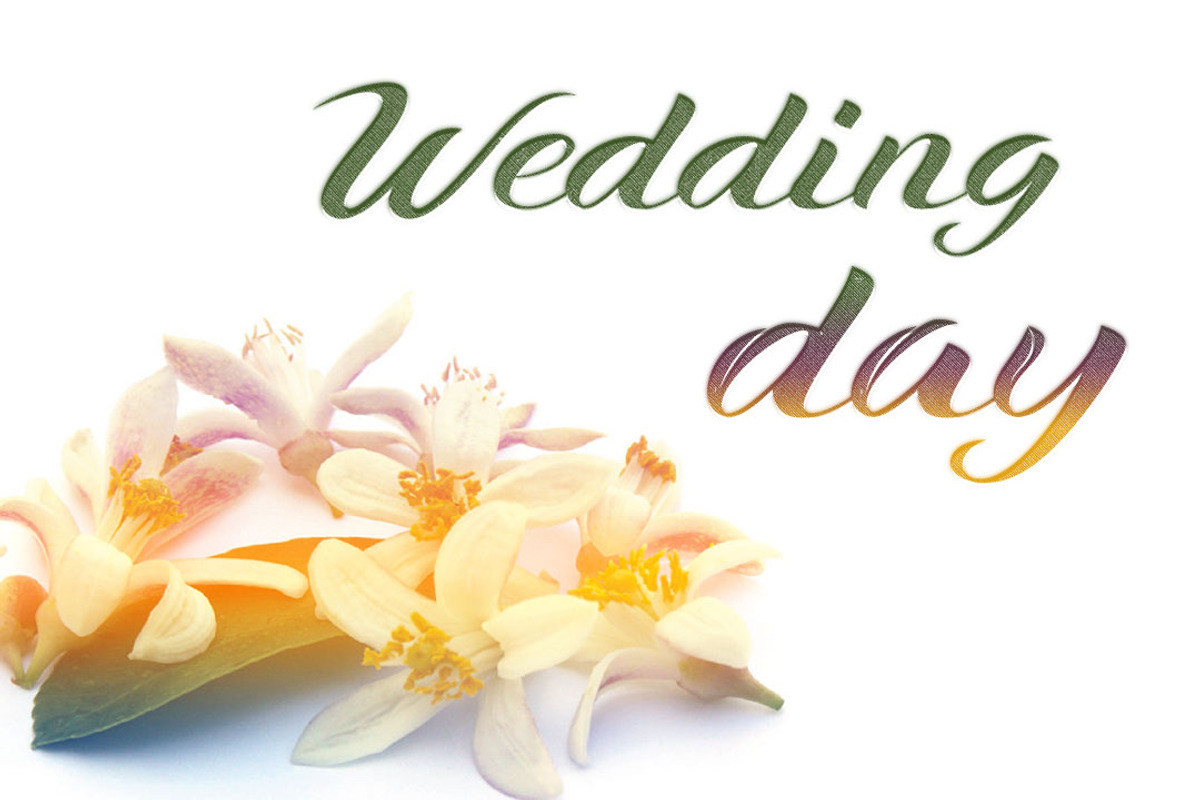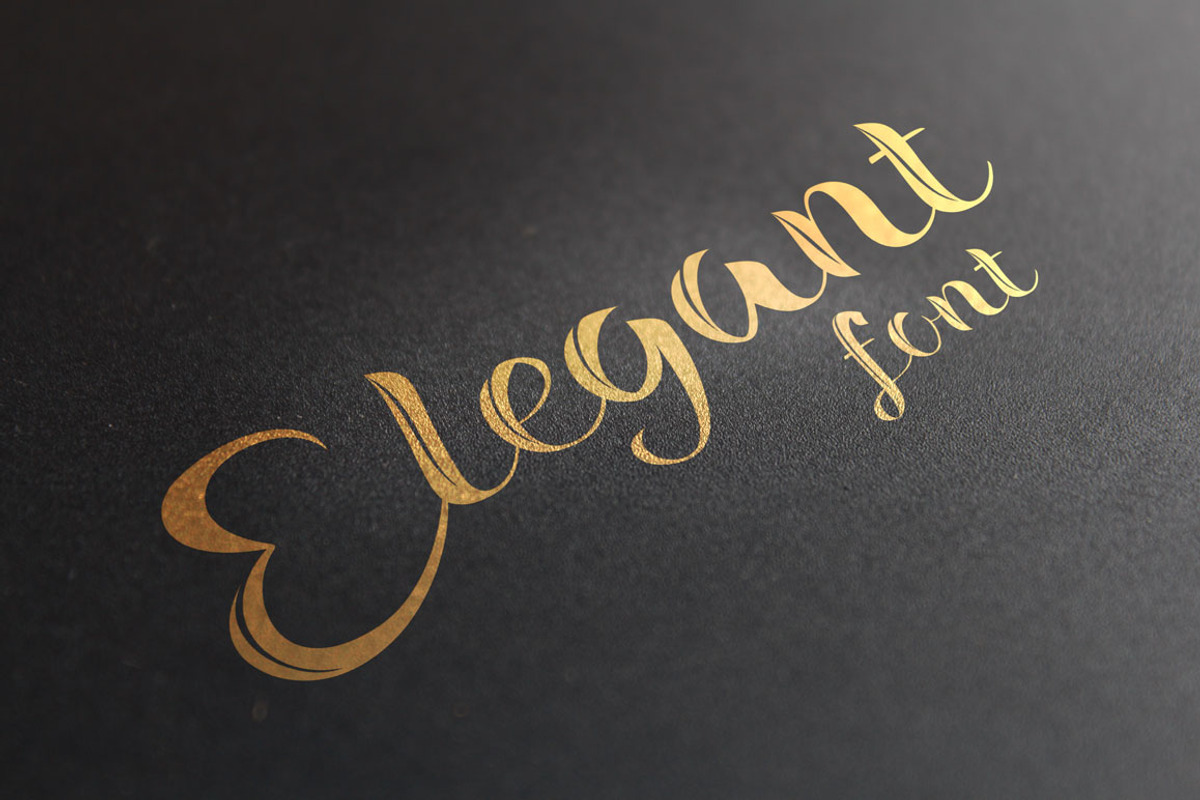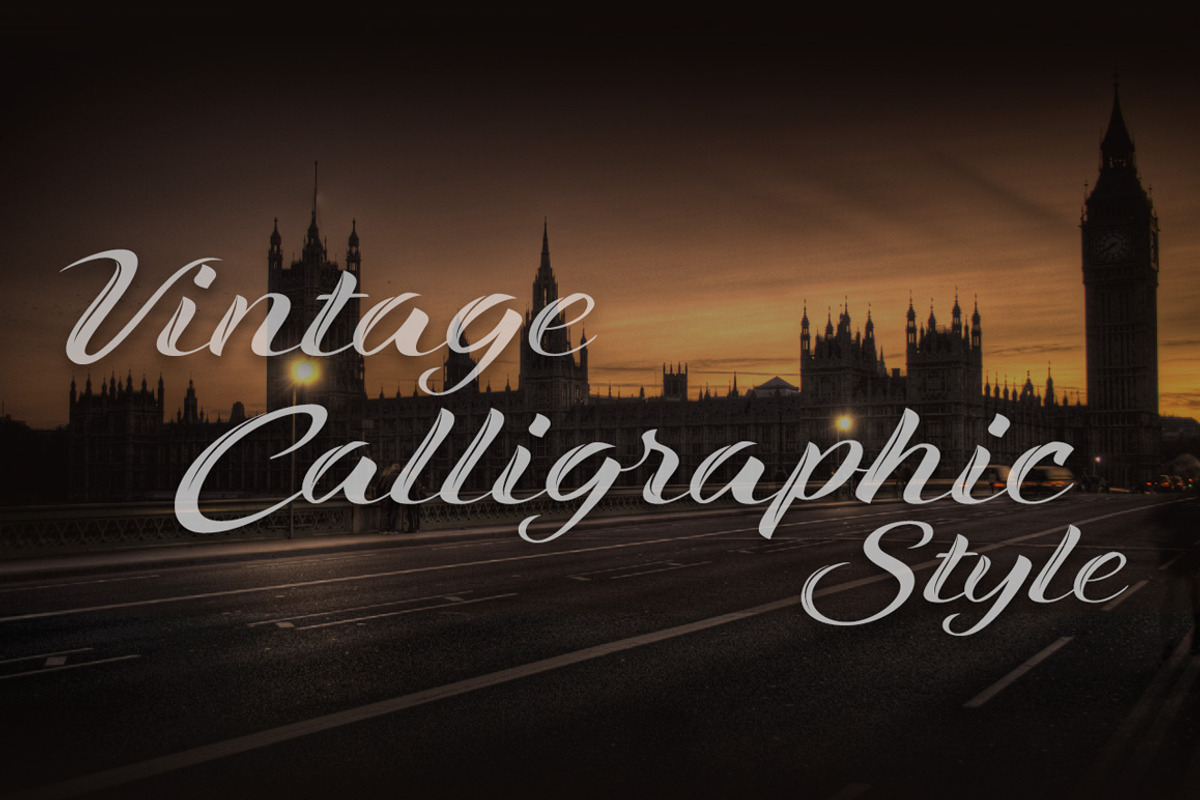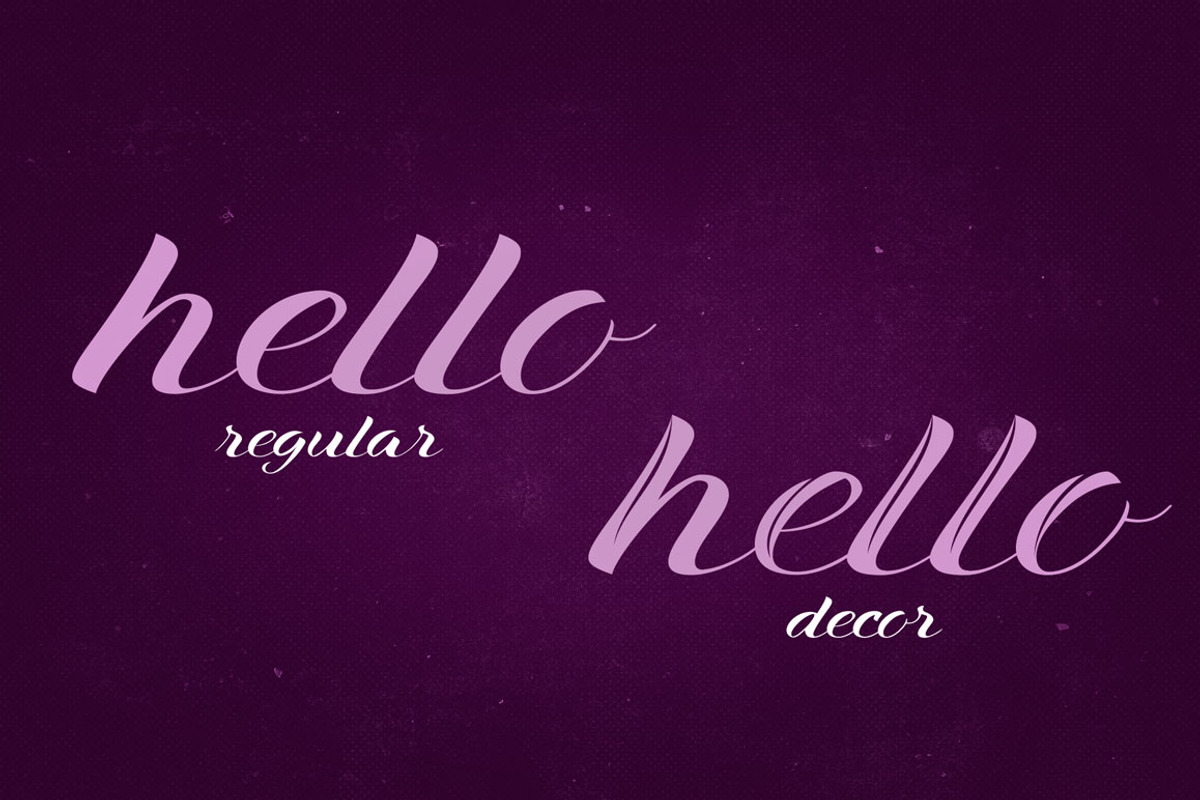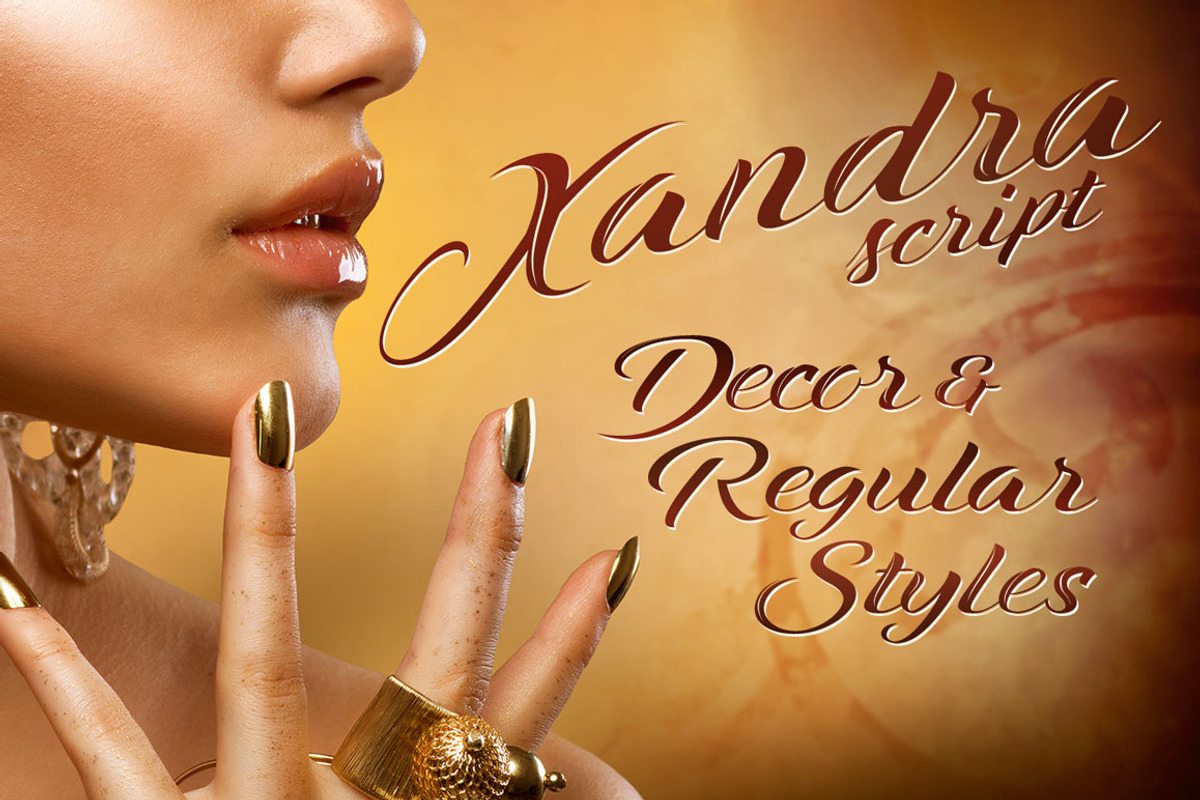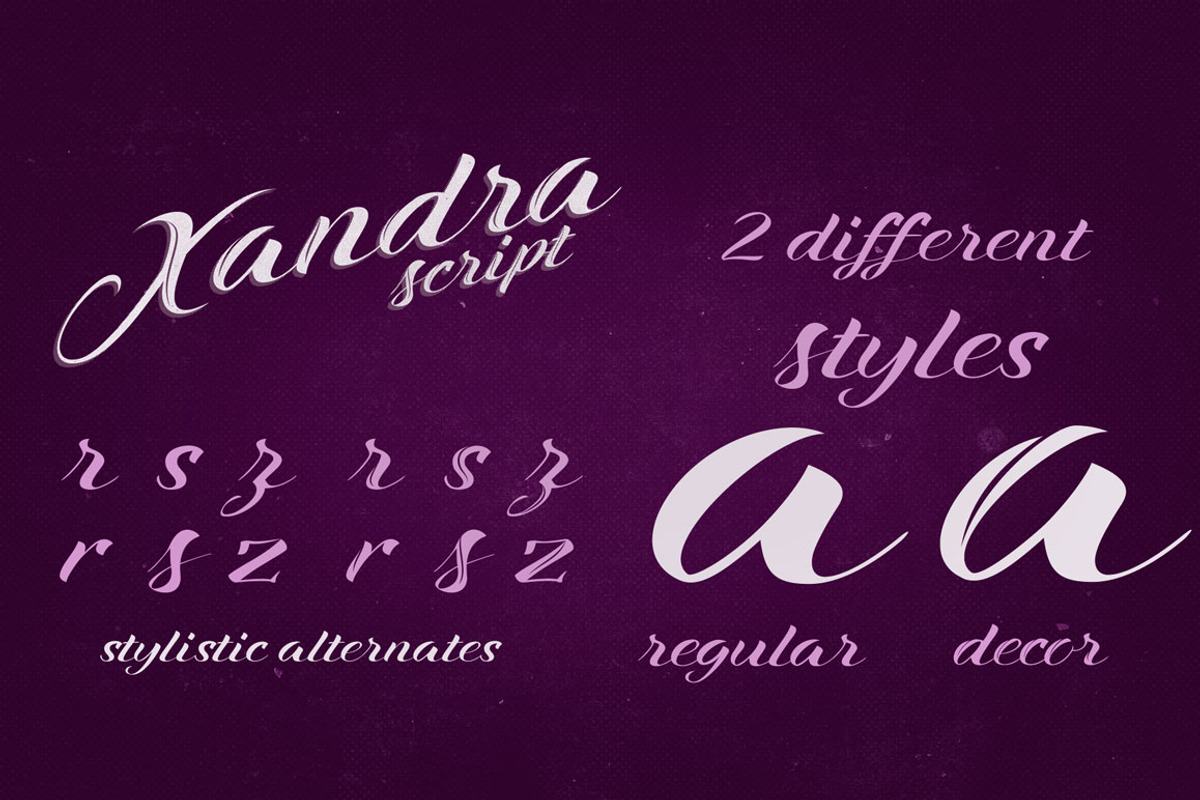
Xandra Script Font Family
Xandra Script Font Family by CRR | NTN is a font selected for branding, posters, packaging, typography.
- Xandra Script Regular
- Xandra Script Decor
Xandra Script Font Family by CRR | NTN fits naturally into Branding, posters, packaging, typography.